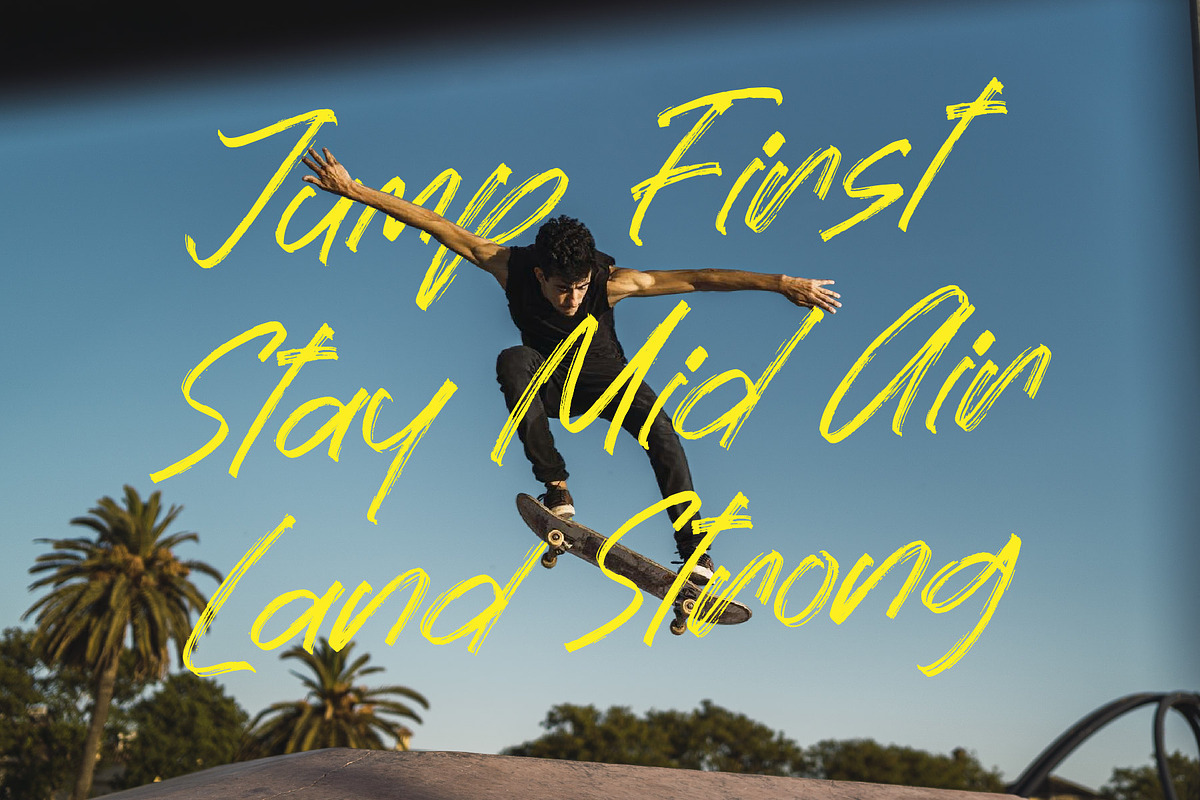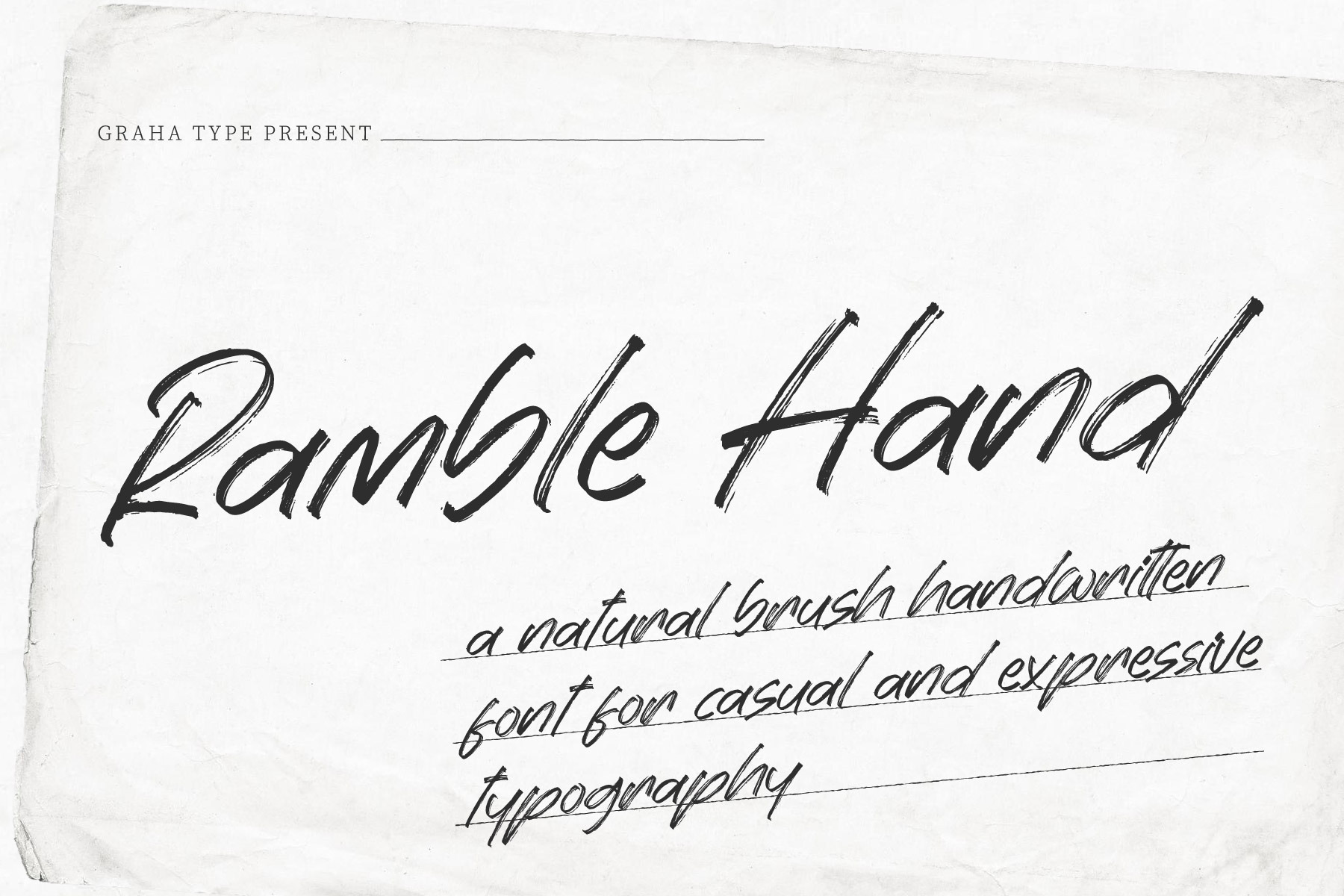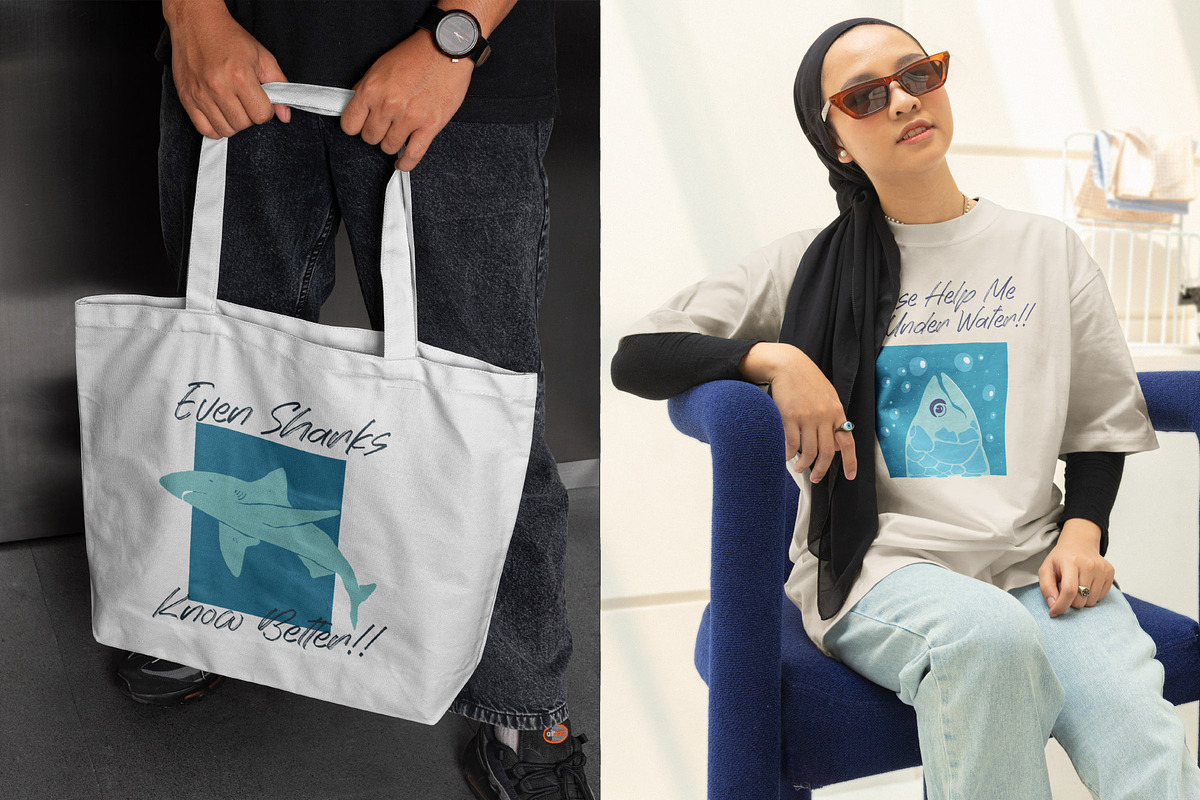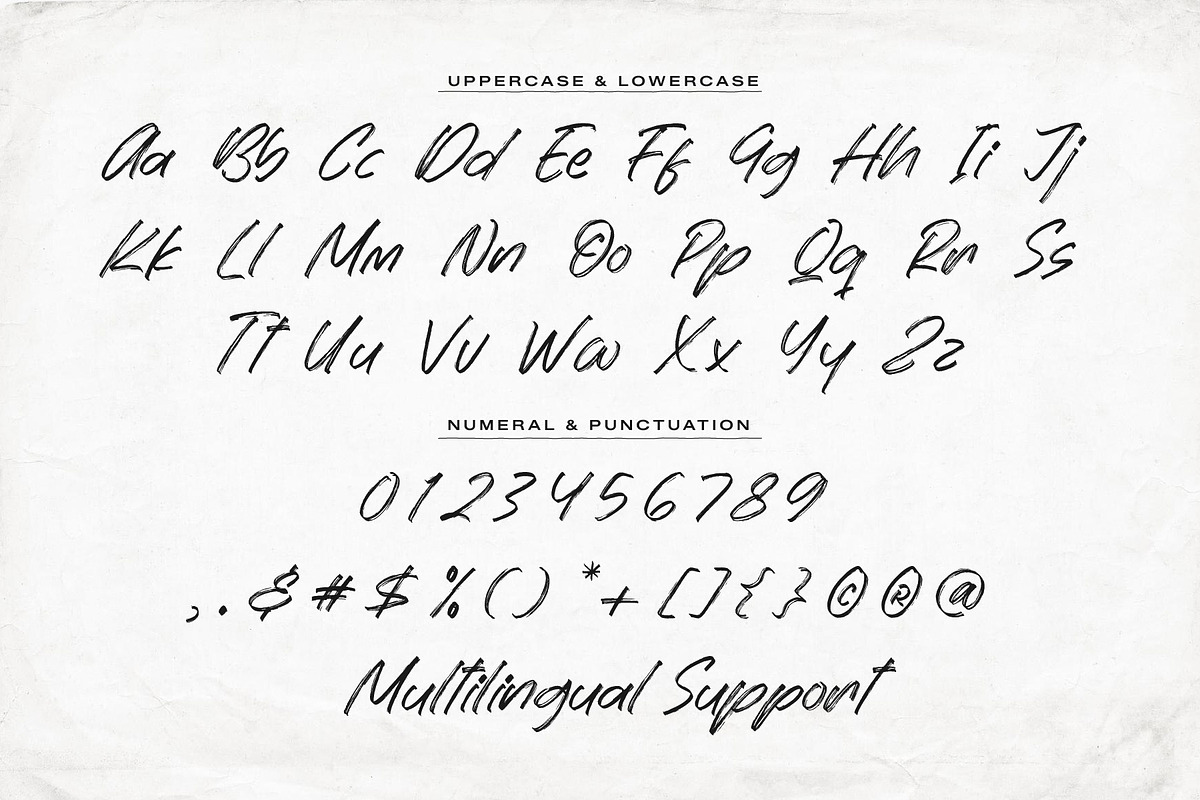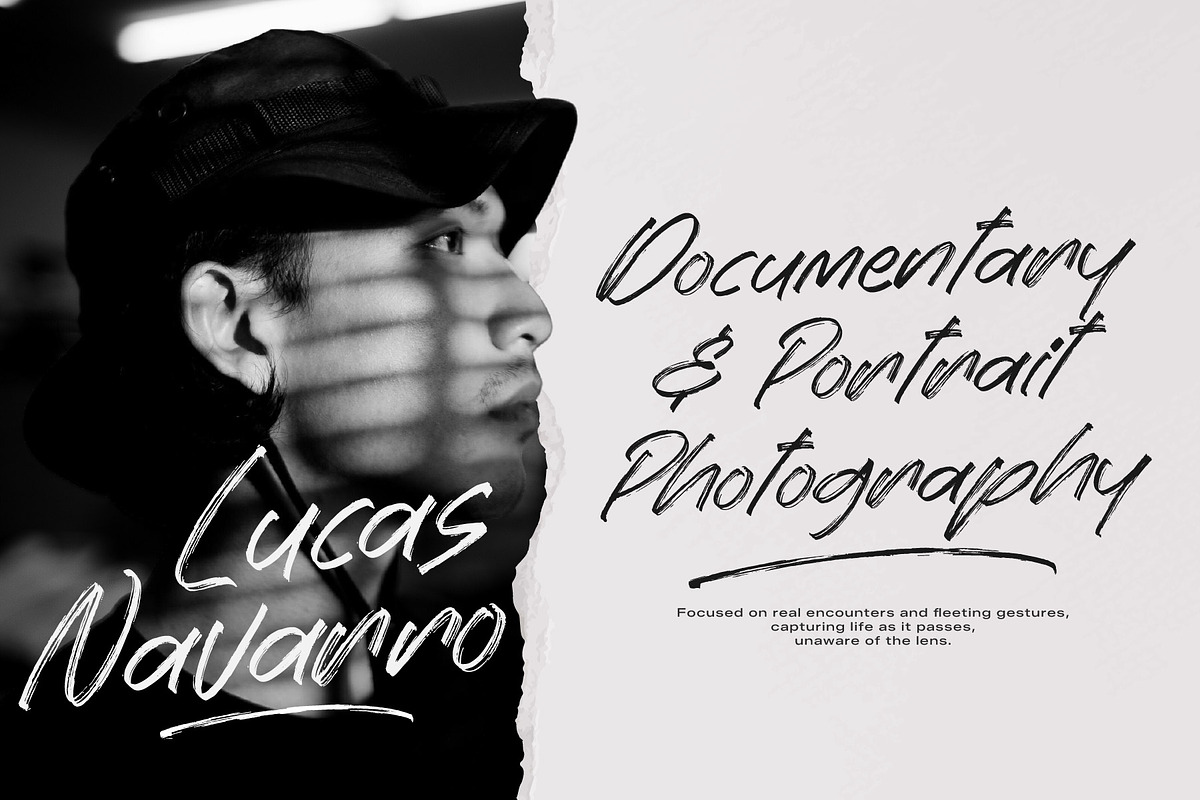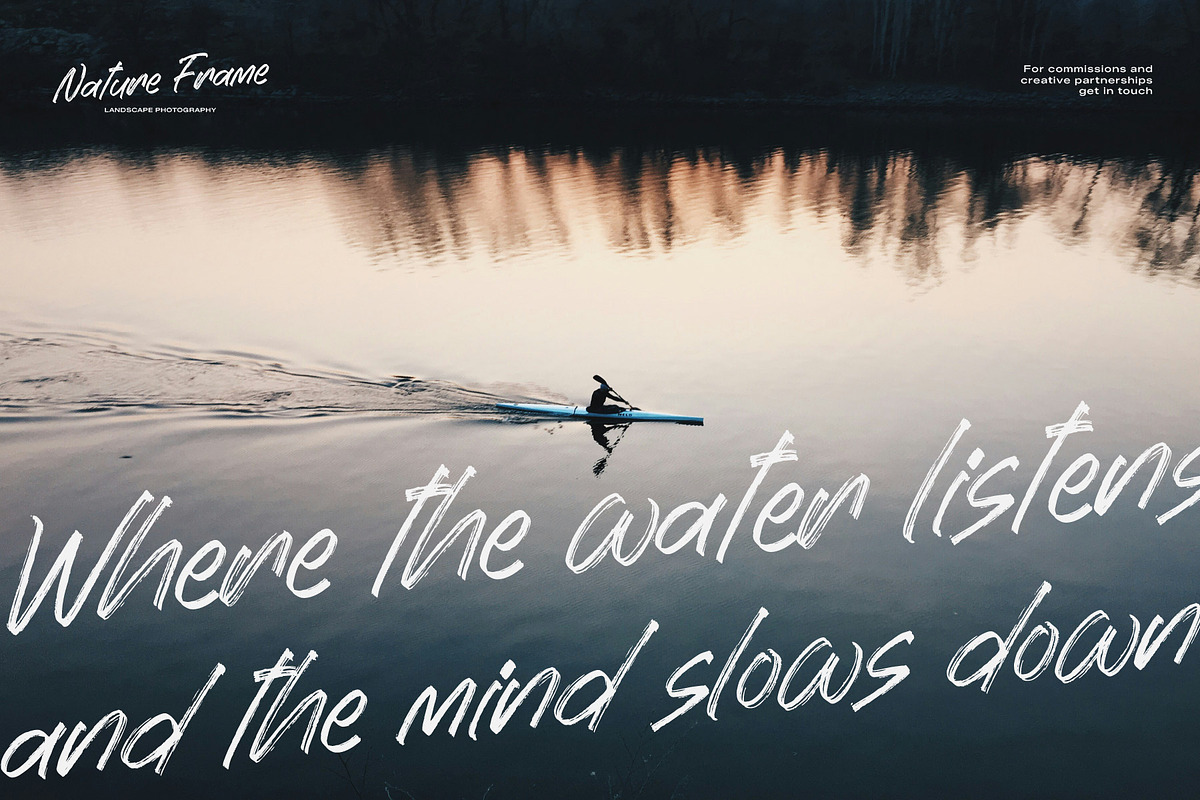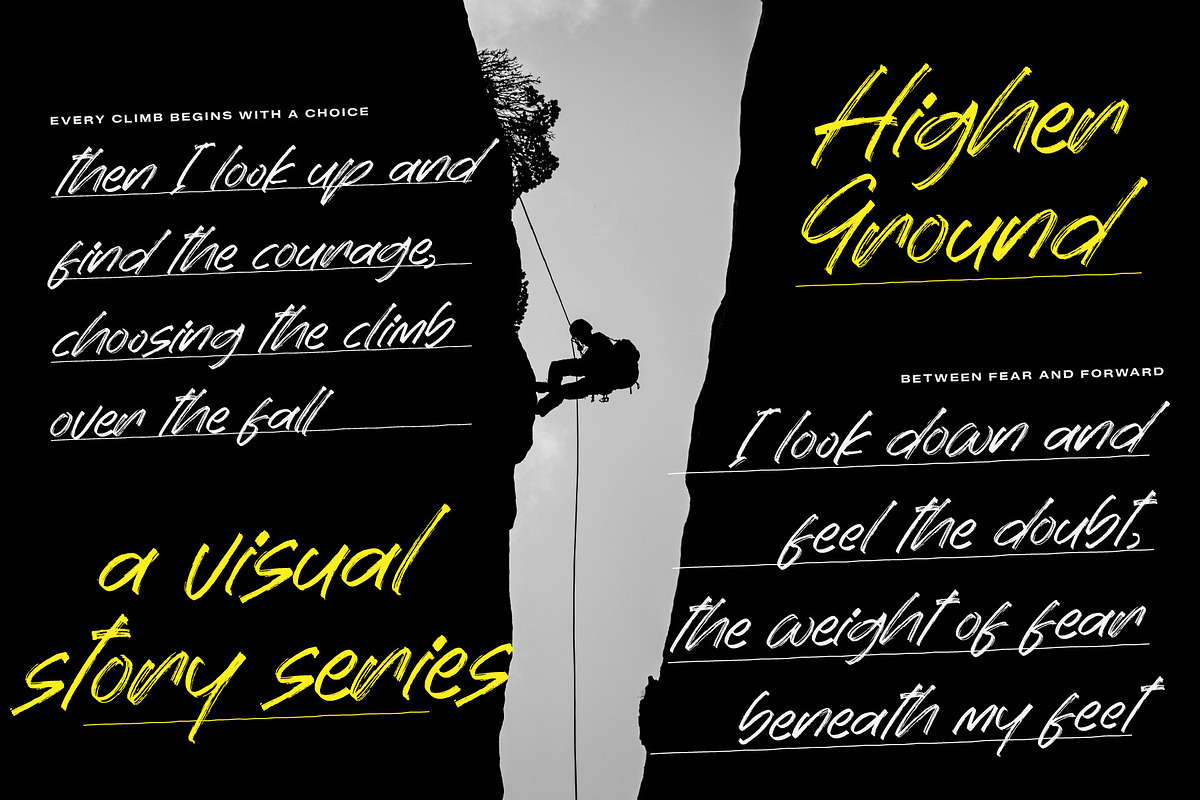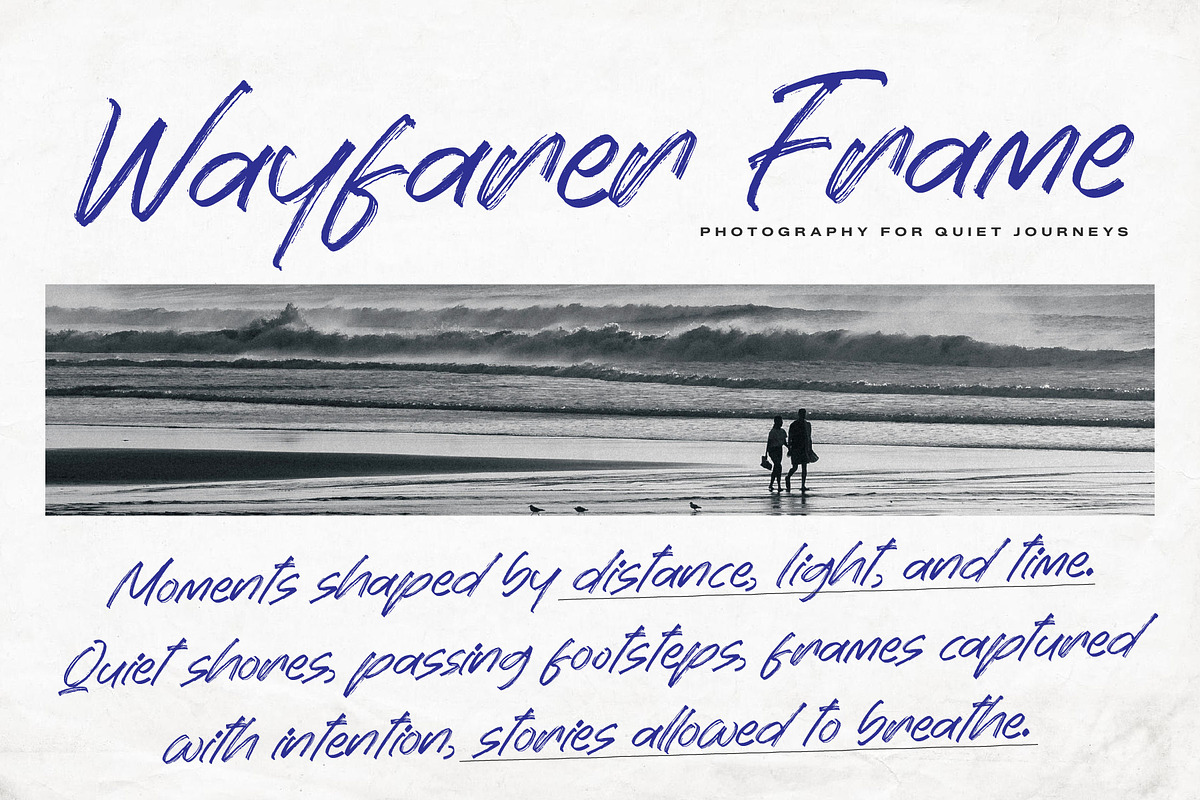
Ramble Hand - Brush Handwritten Font
Ramble Hand is a natural brush handwritten font with rough strokes and expressive character, created to deliver a casual, bold, and authentic handwritten look. Designed for projects that need strong personality and raw visual impact.
This font is ideal for posters, quotes, branding, logos, apparel, packaging, social media graphics, editorial layouts, and creative projects that require an organic and expressive style.
Create bold and expressive designs with Ramble Hand.